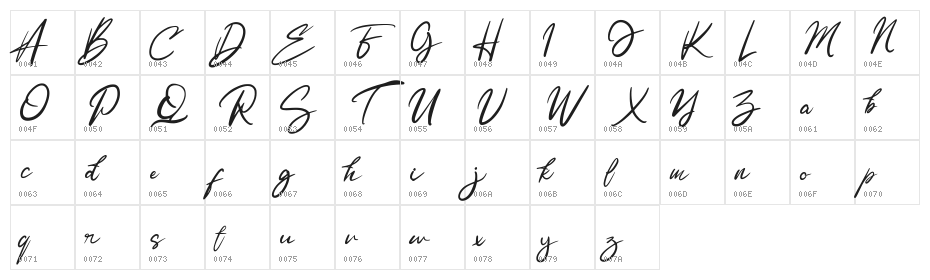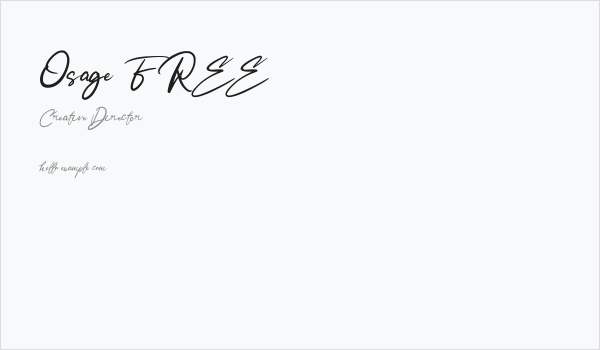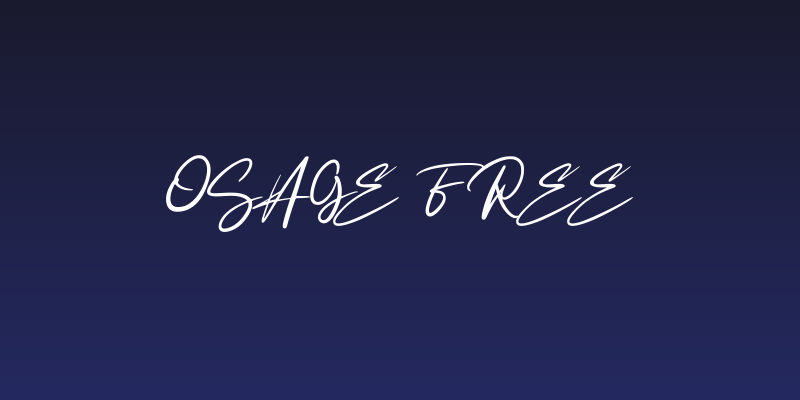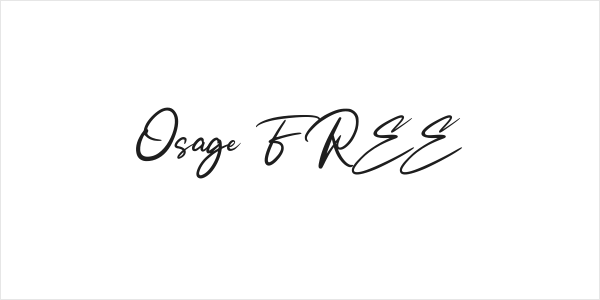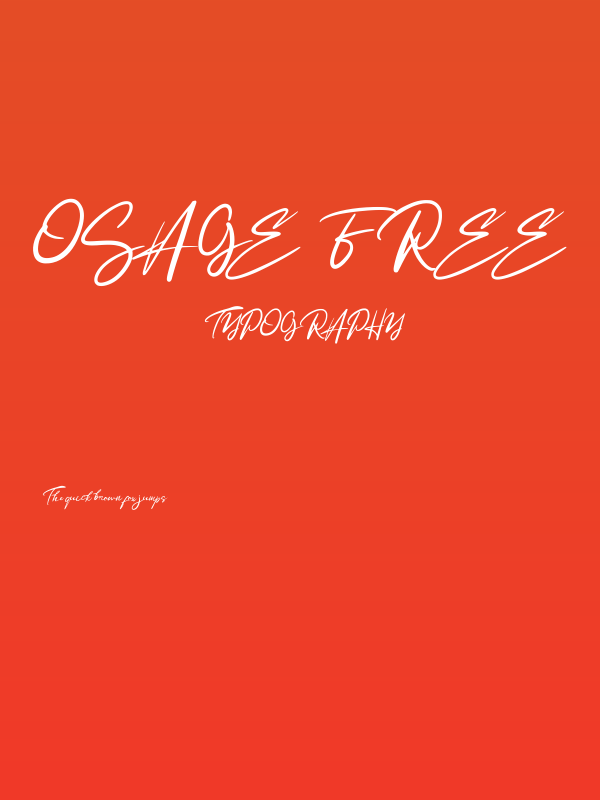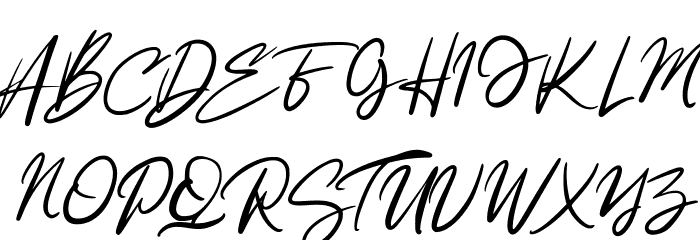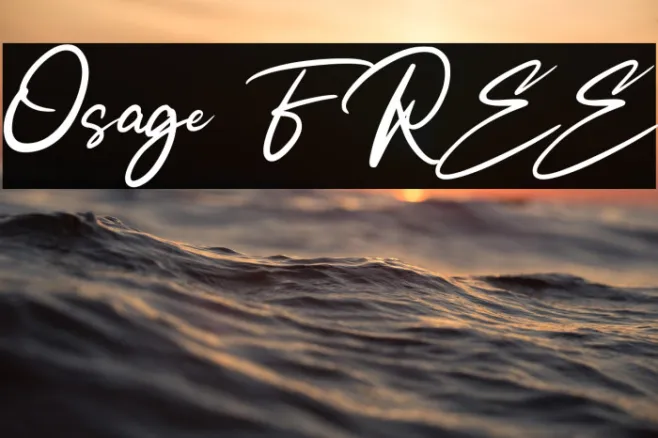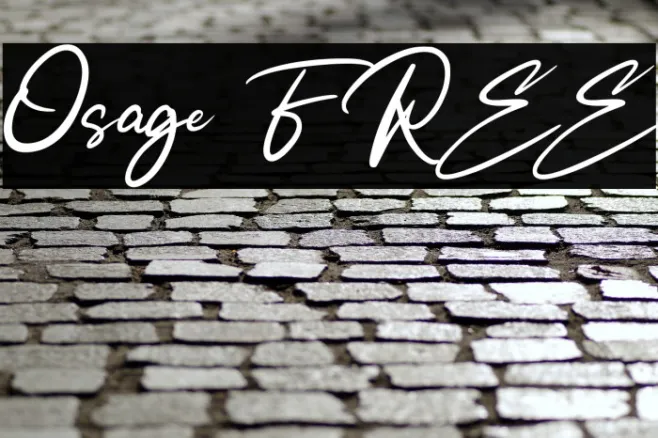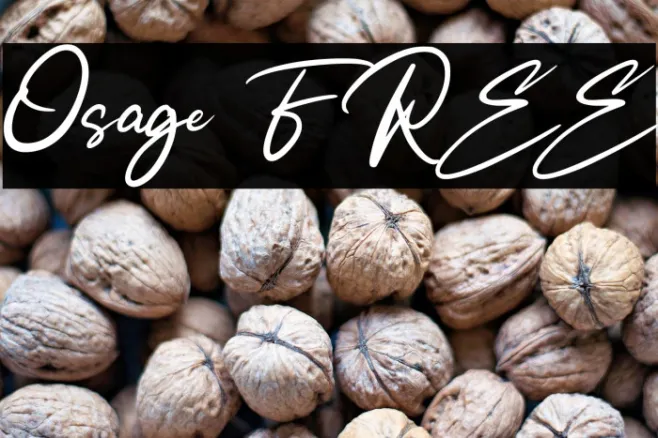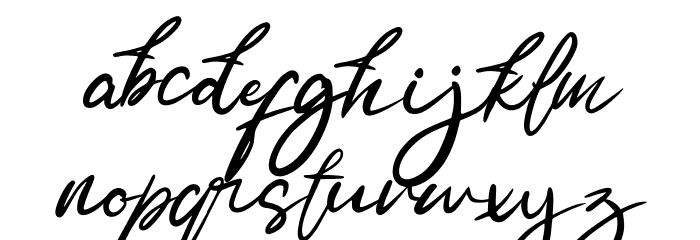
Osage FREE Font
Osage FREE Description
This font features a dynamic and fluid script style, characterized by its elegant and flowing letterforms. The uppercase letters exhibit a sense of movement and grace, with sweeping curves and varying stroke widths that add a touch of sophistication. The lowercase letters maintain a consistent rhythm, with smooth connections between characters that enhance readability. The overall design is reminiscent of traditional calligraphy, yet it incorporates a modern twist with its bold and confident strokes. This font is perfect for projects that require a personal and artistic touch, such as invitations, branding, and artistic designs.
| Use Case | Logos, Invitations, Artistic designs |
| Proposed Projects | Ideal for wedding invitations, branding, artistic designs, and personal projects that require a touch of elegance. |